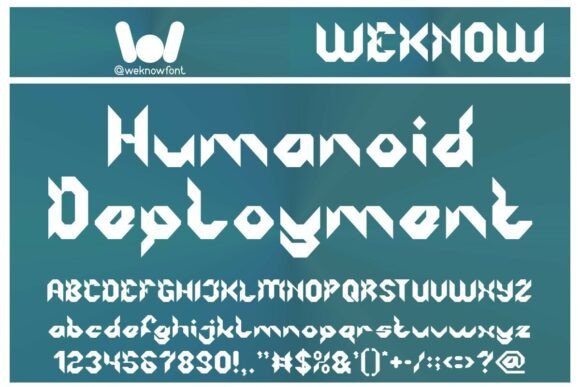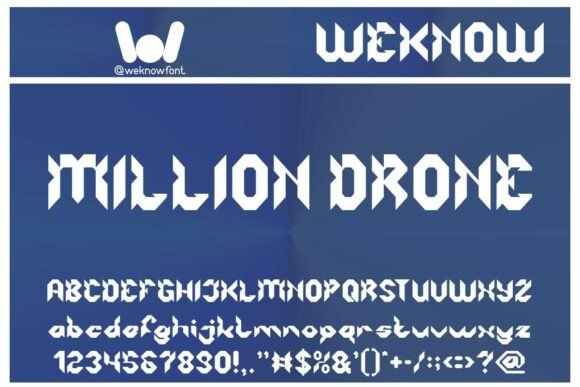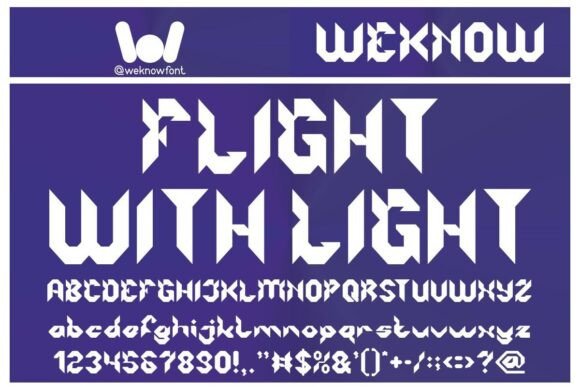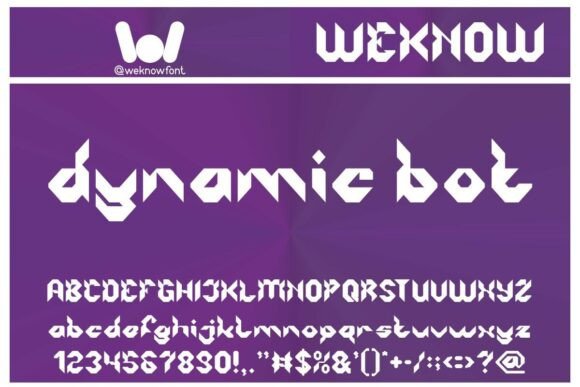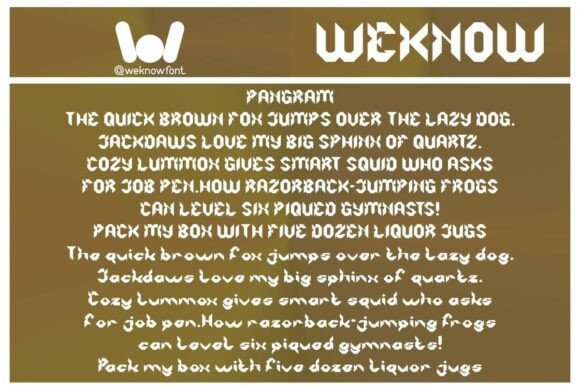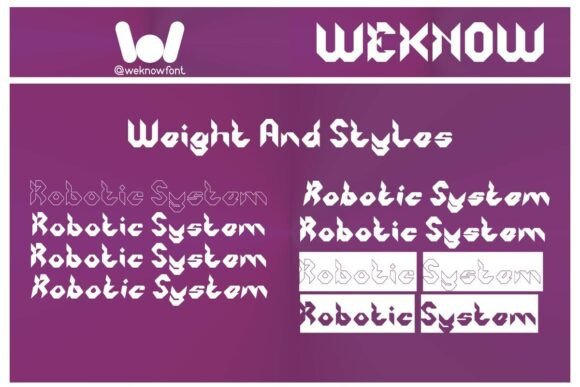
Introduction to Robotic System Font
As designers, we’ve all been there – staring at a blank canvas, waiting for the perfect spark to ignite our creative project. It’s the moment when typography comes to life, and the right font can elevate our ideas to new heights. This is where the Robotic System Font comes in – a game-changing display font that fuses techno and sci-fi elements to transport your audience to a world of innovation and futurism.
With its cutting-edge design and high-quality aesthetic, the Robotic System Font is a valuable asset for designers seeking to create distinctive corporate identities and bold headlines. Whether you’re working on a free download project or a paid design resource, this font is sure to leave a lasting impression. Its transparent background and versatility make it an ideal choice for a wide range of creative applications, from apparel branding to magazine layouts.
As a design resource, the Robotic System Font is more than just a font – it’s a gateway to new possibilities. It’s an invitation to explore the intersection of technology and art, and to bring your most ambitious ideas to life.
Key Features of Robotic System Font
- High-quality digital font with a futuristic aesthetic, ideal for creative projects that require a modern and edgy feel.
- Features a transparent background, allowing for seamless integration with background images or colors.
- Perfect design resource for graphic designers, UI/UX designers, and digital artists working on futuristic, sci-fi, or tech-related projects.
- Includes a range of styles and weights, including bold, regular, and light, providing flexibility for various design applications.
Honest Review: Robotic System Font
As a designer, I’m always on the lookout for high-quality design resources that can elevate my creative projects. Recently, I stumbled upon the Robotic System Font and I’m excited to share my thoughts on it.
What works well: ✨ The font is incredibly versatile and has a wide range of applications, from futuristic sci-fi projects to minimalist tech designs. I also appreciate the transparent background, which makes it easy to use as a design element.
Here are some key features that I like:
- High-quality vector graphics
- Perfect for creative projects, such as futuristic designs and minimalist tech interfaces
Any limitations: ⚠️ While the font is well-designed, I do wish it had more customization options for color and size. Additionally, some of the characters may not be compatible with certain fonts or software.
The Robotic System Font is a high-quality design resource that can elevate your creative project with its futuristic and sleek aesthetic. With its transparent background, this font is perfect for designers who want to add a touch of robotic flair to their designs.
To get the most out of the Robotic System Font, try pairing it with other futuristic design elements, such as neon lights or metallic textures. You can also experiment with different font sizes and colors to create a unique and eye-catching design.
The Robotic System Font is perfect for designers who want to create futuristic and high-tech designs, such as:
- Video game logos and interfaces
- Science fiction movie posters and titles
- Robot-themed designs and products